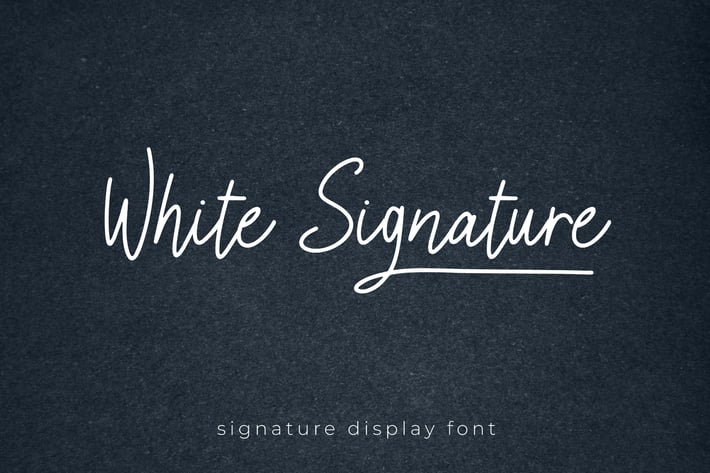
White Signature - Signature Display Font
WHITE SIGNATURE is a simple modern handwritten font. The look of the font is small, elegant, and modern.
White Signature can be used in any works such as wedding invitation, book, poster, advertisement, social media content, logo and many more.